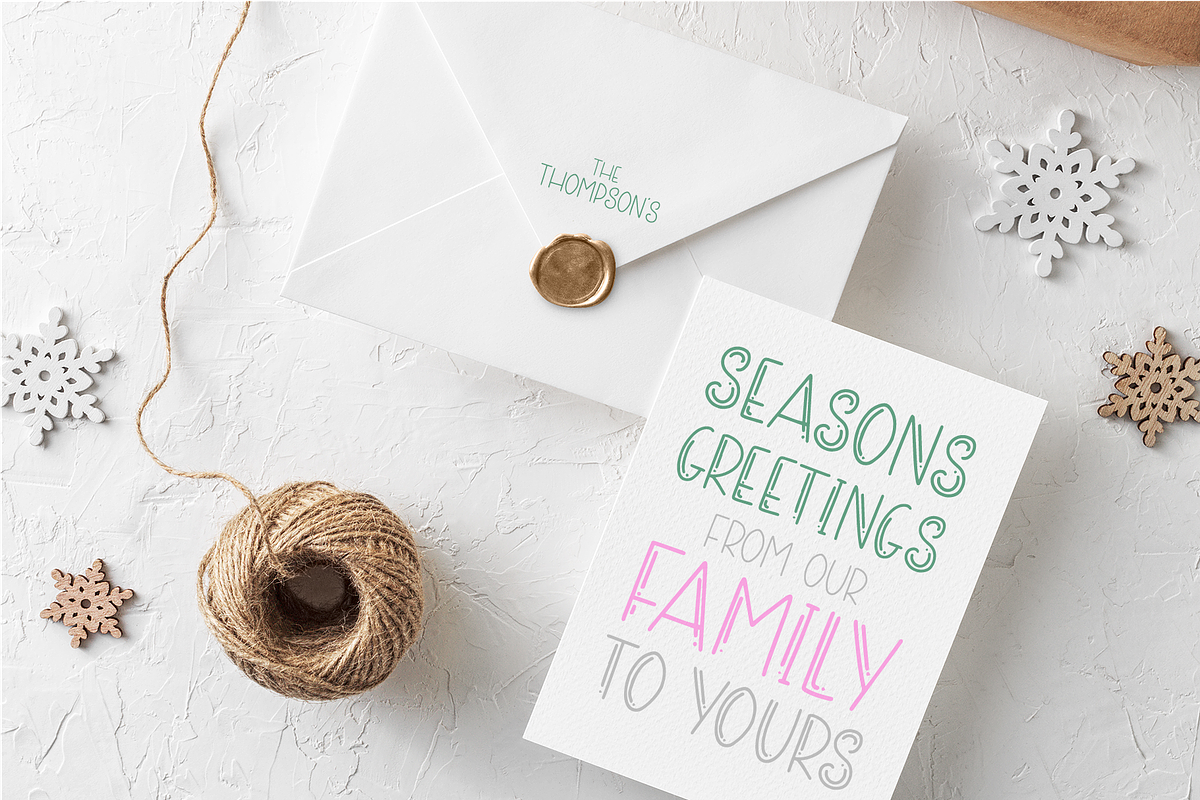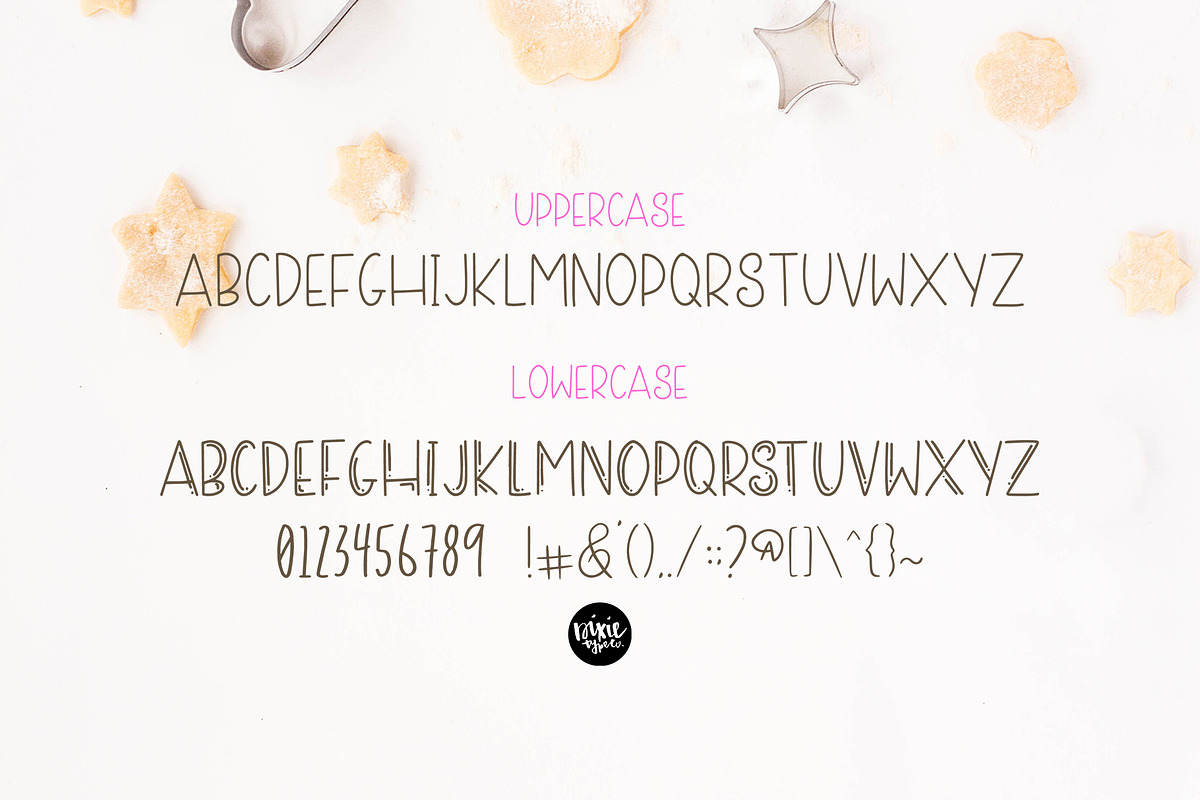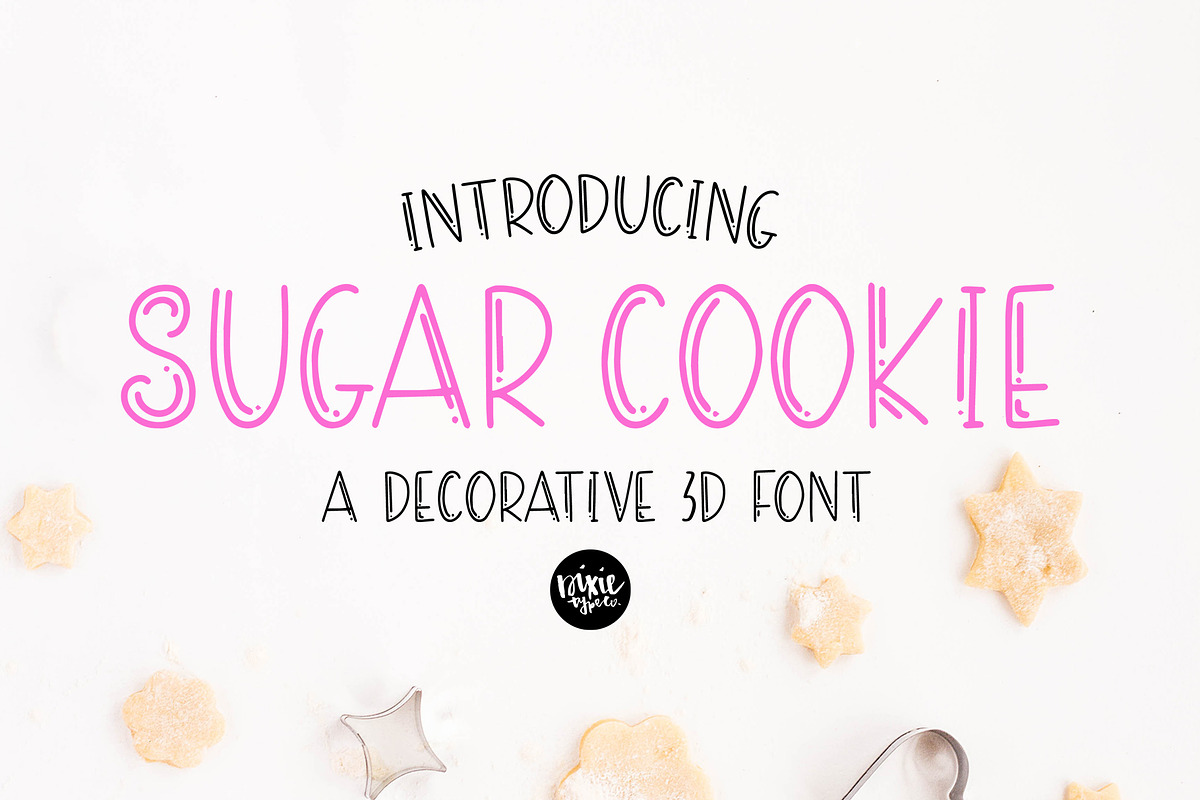
SUGAR COOKIE Decorative 3D Sans Font
"Sugar Cookie" a 3D decorative font
{ A typographic font hand lettered with love by Dixie Type Co. }
Sugar Cookie is great for your holiday projects. Use it for Christmas cards, winter crafts for decor and more! This font includes numbers and basic punctuation.
UPPERCASE characters in this font are (matching) basic sans letters, and lowercase characters provide the decorative letters.